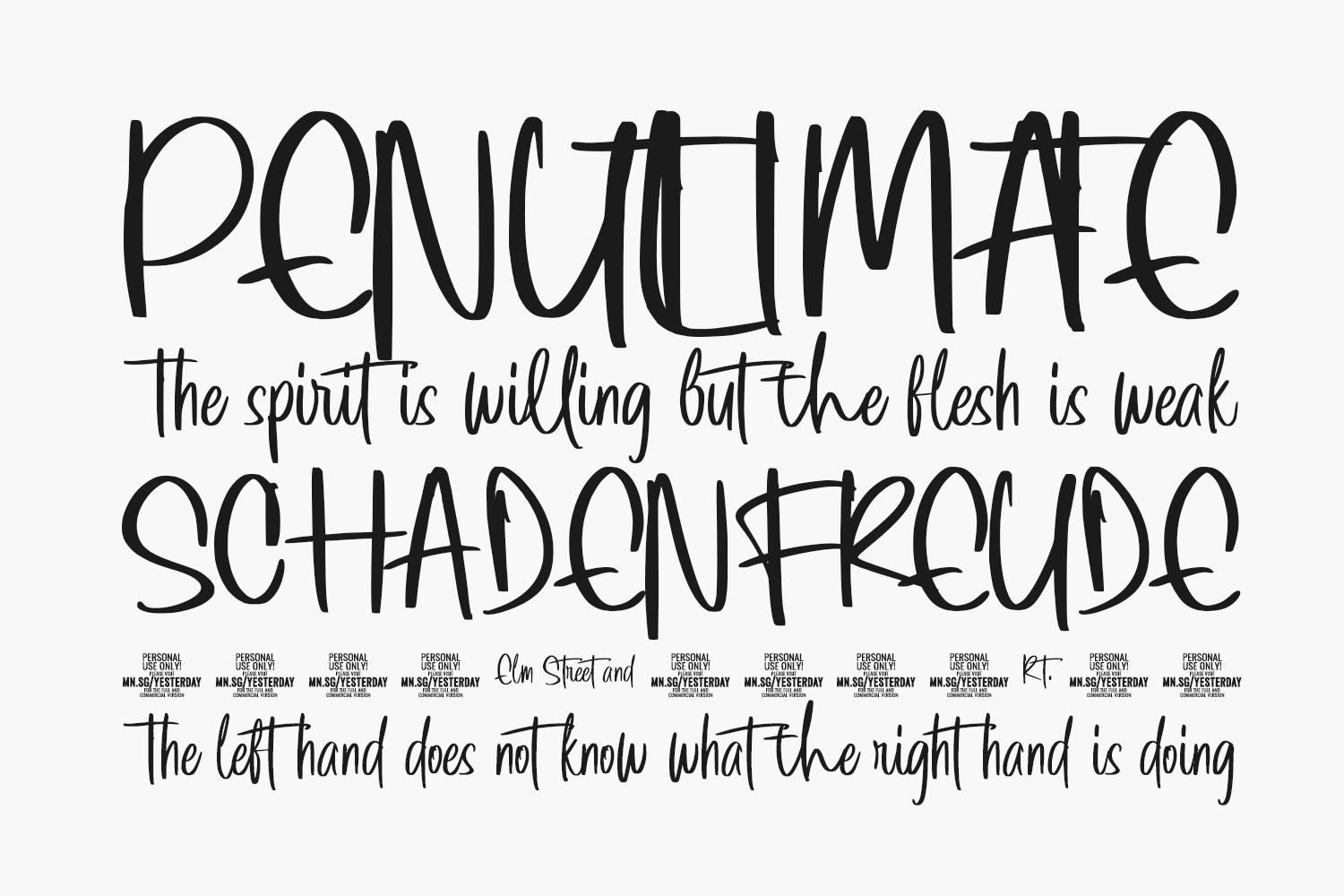
Introducing Yesterday Morning Free Font is a contemporary script font with a captivating irregular baseline. Embodying trendiness and style, this font adds a delightful touch to various applications, including wedding invitations, thank-you cards, quotes, greeting cards, logos, business cards, and beyond. Elevate your designs with the charm and elegance of “Yesterday Morning” for a truly memorable impression. Free Font is a demo and free for personal use only. Please purchase the full version for commercial use.